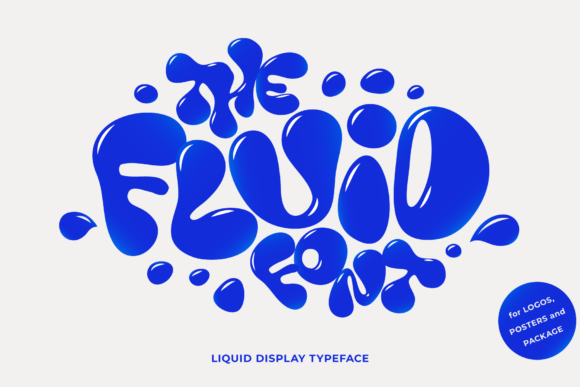
The Birth of a Bold New Font
Have you ever been inspired by the vibrant colors and dynamic energy of a beachside sunset? I know I have. For designers, those moments of creative spark can be the catalyst for something truly special – like the birth of a bold new font. Enter The Fluid Font, a game-changing display typeface that embodies the carefree spirit of the ocean and the high-gloss sheen of modern digital branding.
This ultra-dynamic font is designed to make a splash, with its thick, amorphous letterforms and stylized splash points evoking the feeling of waves crashing against the shore. Whether you’re creating branding for an independent beverage company or designing graphics for a streetwear label, The Fluid Font is the perfect tool for bringing your vision to life.
As a designer, you know how valuable it is to have a versatile font that can adapt to any project. With its heavy footprint and hyper-fluid movement, The Fluid Font is the ultimate choice for any creative endeavor that requires a bold, eye-catching look.
Fluid Font Key Features
Fluid Font Review
Fluid Font is a unique and visually appealing font that I’ve had the chance to work with. One of its standout features is its ✨ versatility. It adapts seamlessly to various screen sizes and resolutions, making it a great choice for responsive design projects. The font’s ✨ fluidity is also evident in its smooth transitions and animations, which can add a touch of sophistication to any design.
However, there are some limitations to consider. One of the main drawbacks is its ✨ limited character set. While it includes a wide range of Latin and Cyrillic characters, it falls short when it comes to other languages and scripts. Additionally, the font’s ✨ bold weights can sometimes appear inconsistent, which may require some adjustments in your design.
Here are some specific pros and cons to keep in mind:
- ✨ Responsive design capabilities make it suitable for modern web design
- ✨ Smooth animations can enhance user experience
- ⚠️ Limited character set may not be suitable for multilingual projects
- ⚠️ Inconsistent bold weights may require design adjustments
Overall, Fluid Font is a solid choice for designers who value versatility and sophistication. While it may have some limitations, its strengths make it a great addition to any design project.
For best results, use Fluid Font for headings and titles, and a standard font for body text.
Fluid Font works well for creating custom typography and logos in Adobe Creative Cloud apps.
Fluid Font adds a professional touch to presentations and documents, making it ideal for business and marketing materials.
Use Fluid Font for:
- Custom logos and typography
- Business and marketing materials
- Presentations and documents
Experiment with different font sizes and styles to create a unique look and feel.
Alternatives to Fluid Font
Montserrat is a modern sans-serif font, designed for digital interfaces. It is ideal for use in headings and titles, particularly in digital applications and websites. Montserrat is a more geometric font compared to Fluid Font, with clean lines and a minimalist aesthetic. Use it for modern and sleek designs.
Abril Fatface is an elegant, serif font, perfect for creating a sense of sophistication and luxury. It is suitable for use in body text, especially for articles and blogs. Abril Fatface is more ornate compared to Fluid Font, with a classic feel. Use it for traditional and vintage-inspired designs.
Can I customize the Fluid Font design to fit my brand identity?
Yes, you can customize the Fluid Font design to fit your brand identity. The font is designed to be highly customizable, and you can use OpenType features like stylistic sets and variable fonts to create unique and personalized typography experiences. You can also use CSS rules to adjust the font’s size, weight, and other properties to fit your design needs.